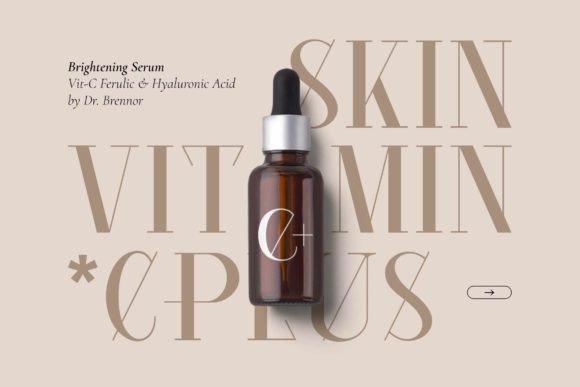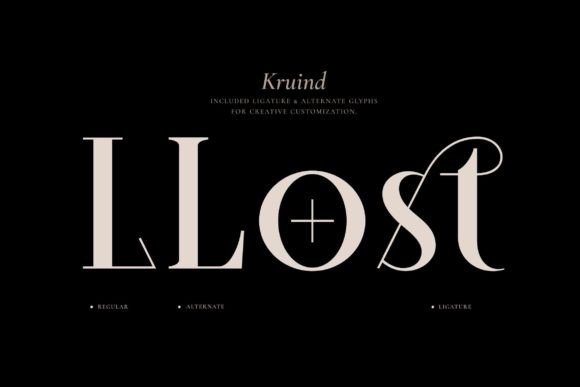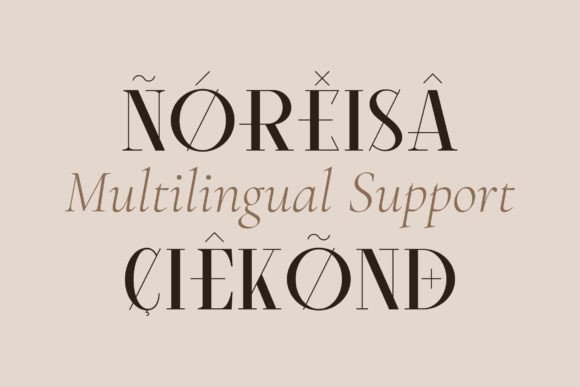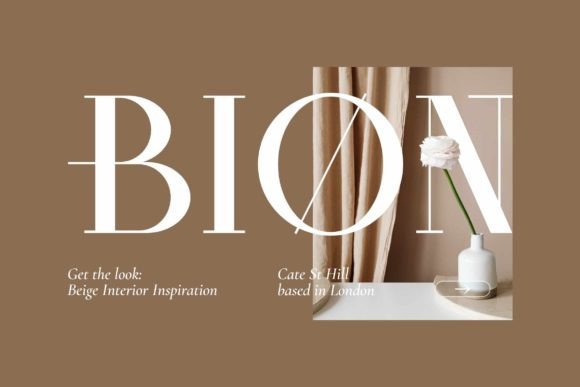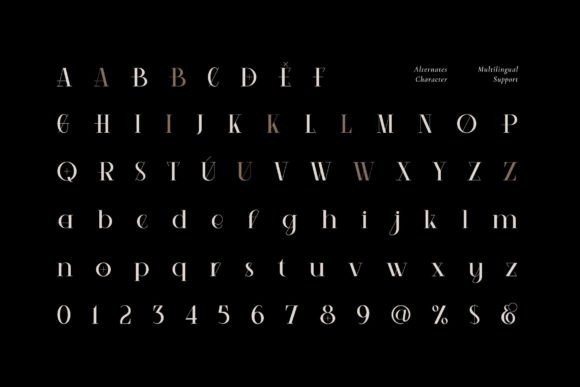
Introduction to Kruind Font
Have you ever stared at a blank page, trying to find the perfect font to elevate your creative project? The struggle is real, especially when you’re working on a high-stakes design project. That’s where the Kruind Font comes in – a modern serif font that’s about to become your new go-to design resource.
With its sleek and sophisticated design, Kruind Font is perfect for creating stunning logos, quotes, posts, and branding projects. Its versatility shines through in all caps, lowercase, or intermixed text, making it a valuable addition to any designer’s toolkit. And the best part? This high-quality font is available for free download, complete with a transparent background that makes it easy to customize and integrate into your design.
- High-quality design: Kruind Font is a professional-grade font, perfect for any creative project that requires a high level of sophistication and style.
Honest Review: Kruind Font
As a designer, I’m always on the lookout for high-quality design resources that can elevate my creative projects. Recently, I stumbled upon the Kruind Font, and I’m excited to share my honest review with you.
Here are some aspects where the Kruind Font shines: ✨
- Unique design: The Kruind Font has a distinctive style that sets it apart from other fonts. Its quirky aesthetic makes it perfect for adding a touch of personality to your designs.
However, I did encounter some limitations: ⚠️
- Limited character set: The Kruind Font has a relatively small character set, which may not be suitable for projects that require a wide range of characters.
- Not ideal for body text: While the font is perfect for headlines and titles, it may not be the best choice for body text due to its quirky nature.
Overall, I’m impressed with the Kruind Font’s unique design and high quality. While it may have some limitations, it’s a valuable resource for designers who want to add a touch of personality to their creative projects.
Tips for Getting the Most Out of Kruind Font
For the most effective use of the Kruind Font, use it in conjunction with other high-quality design resources. Experiment with different font sizes and styles to create a visually appealing design. You can also use the font in a variety of creative projects, from logos to brochures.
The Kruind Font is ideal for use in a variety of creative projects, including logos, brochures, business cards, and social media graphics. Its high-quality design and transparent background make it a great resource for designers looking to create a professional and modern look.